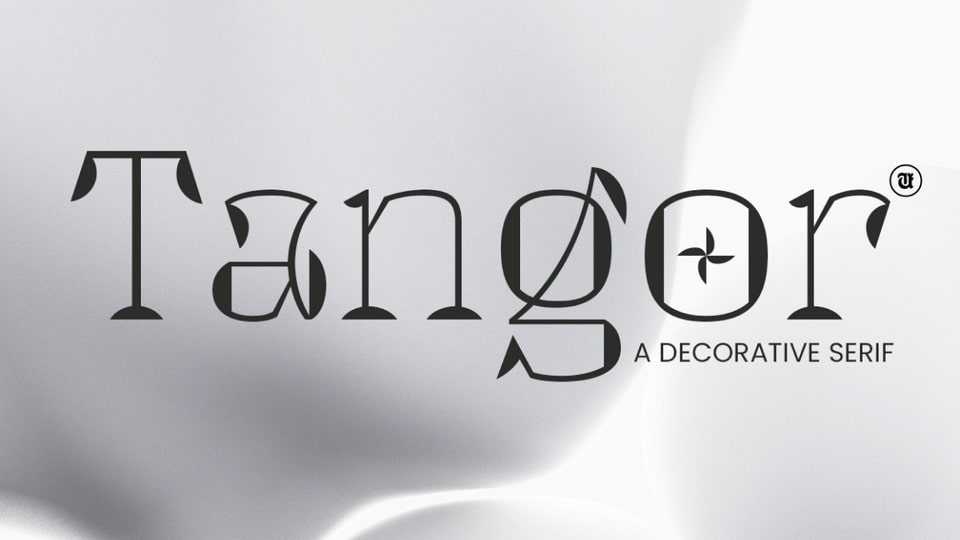
Download UT Tangor font, a distinctive decorative serif typeface that masterfully blends classical elegance with contemporary flair, designed for impact and refined aesthetics.
Designer: Universitype Foundry